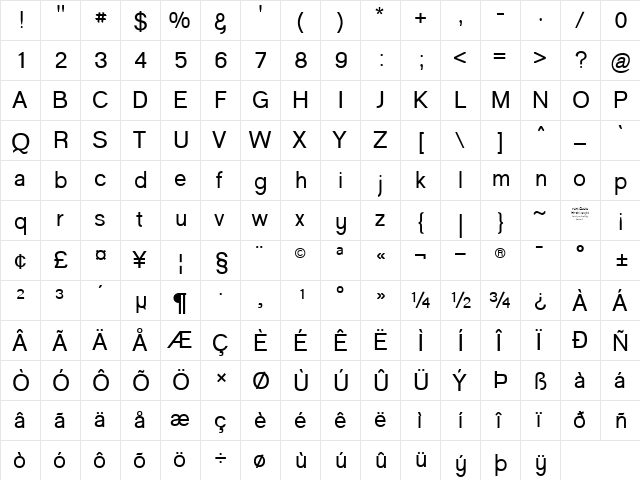
Goulong Regular
Design Context for Goulong Typeface
Goulong offers clean, dependable letterforms without strong stylistic allegiance, making it a practical choice for designers who need flexibility.